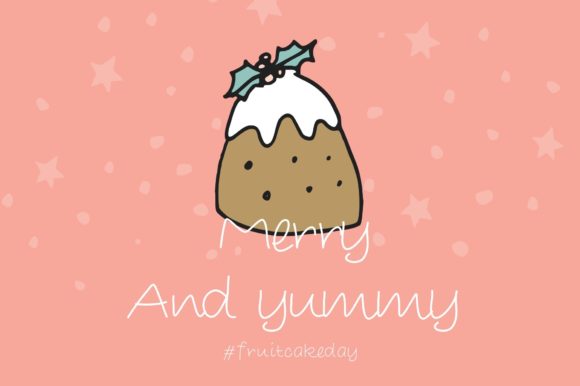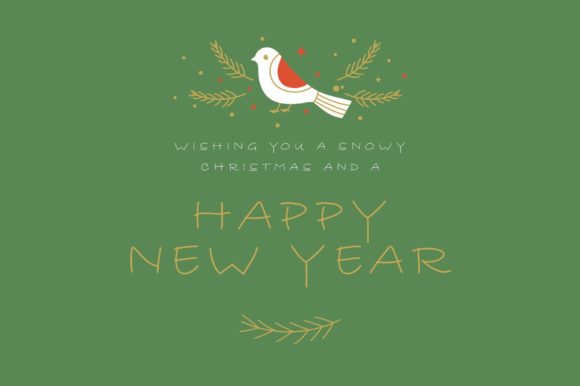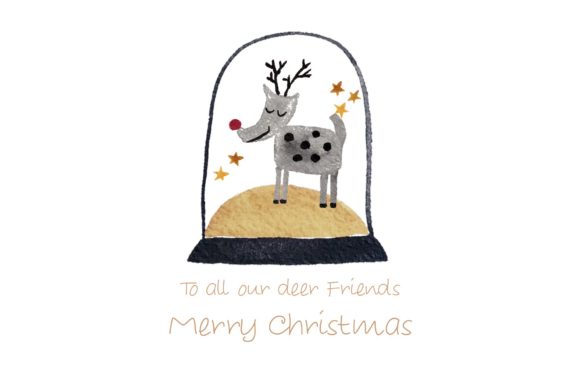
Discover the Charm of Daniela Font: A Versatile Handwritten Delight
In the world of typography, a font can make all the difference in the aesthetic and feel of a design project. For those seeking a dainty and simple handwritten font that exudes elegance and versatility, look no further than Daniela Font. This beautiful, adaptable font is perfect for a wide range of design applications, from Cricut projects and logos to wedding invitations and social media graphics.
The Beauty of Daniela Font
Daniela Font is characterized by its delicate, cursive strokes and effortless charm. Its simple yet sophisticated design makes it an excellent choice for designers and crafters looking to add a touch of personality to their projects. The font’s dainty appearance belies its incredible versatility, allowing it to seamlessly integrate into various design styles and themes.
One of the standout features of Daniela Font is its adaptability. This font can be used for a multitude of design projects, including:
- Cricut Projects: Add a personal touch to your Cricut crafts, such as custom vinyl decals, iron-on designs, and paper crafts.
- Logos and Branding: Create a unique and memorable brand identity with Daniela Font, perfect for business cards, letterheads, and packaging.
- Wedding Invitations: Set the tone for a special day with elegant, handwritten wedding invitations and save-the-date cards.
- Deco and Home Decor: Use Daniela Font to create beautiful pantry labels, wall art, and home decor items that add a touch of personality to any room.
- Mugs and Drinkware: Design custom mugs, tumblers, and water bottles with Daniela Font for a thoughtful and functional gift.
- Stickers and Labels: Create custom stickers and labels for organization, decoration, or promotional purposes.
- Greeting Cards and Posters: Add a personal touch to your greeting cards, posters, and flyers with the charming, handwritten aesthetic of Daniela Font.
- Social Media and Planner Prints: Elevate your social media graphics and planner prints with a font that is both visually appealing and easy to read.
Why Choose Daniela Font?
With so many fonts available, why choose Daniela Font for your design projects? Here are just a few reasons:
- Unique and Eye-Catching: Daniela Font offers a distinctive, handwritten look that sets it apart from more traditional fonts.
- Versatile: This font can be used for a wide range of design applications, making it a valuable addition to any designer’s toolkit.
- Elegant and Sophisticated: Daniela Font exudes elegance and sophistication, making it perfect for projects that require a touch of refinement.
- Easy to Read: Despite its delicate appearance, Daniela Font is clear and easy to read, making it suitable for both digital and print applications.
Tips for Using Daniela Font
To get the most out of Daniela Font, consider the following tips:
- Pair with Bold Fonts: Combine Daniela Font with bold, contrasting fonts to create visual interest and hierarchy in your designs.
- Experiment with Colors: Daniela Font looks beautiful in a range of colors, from soft pastels to rich jewel tones. Experiment with different hues to find the perfect match for your project.
- Play with Size: Daniela Font can be used at a variety of sizes, from small labels to large posters. Experiment with different sizes to find the perfect fit for your design.
Whether you’re a designer, crafter, or DIY enthusiast, Daniela Font is an excellent choice for any project that requires a touch of elegance and sophistication. With its versatility, unique charm, and ease of use, this beautiful handwritten font is sure to become a favorite in your design toolkit.